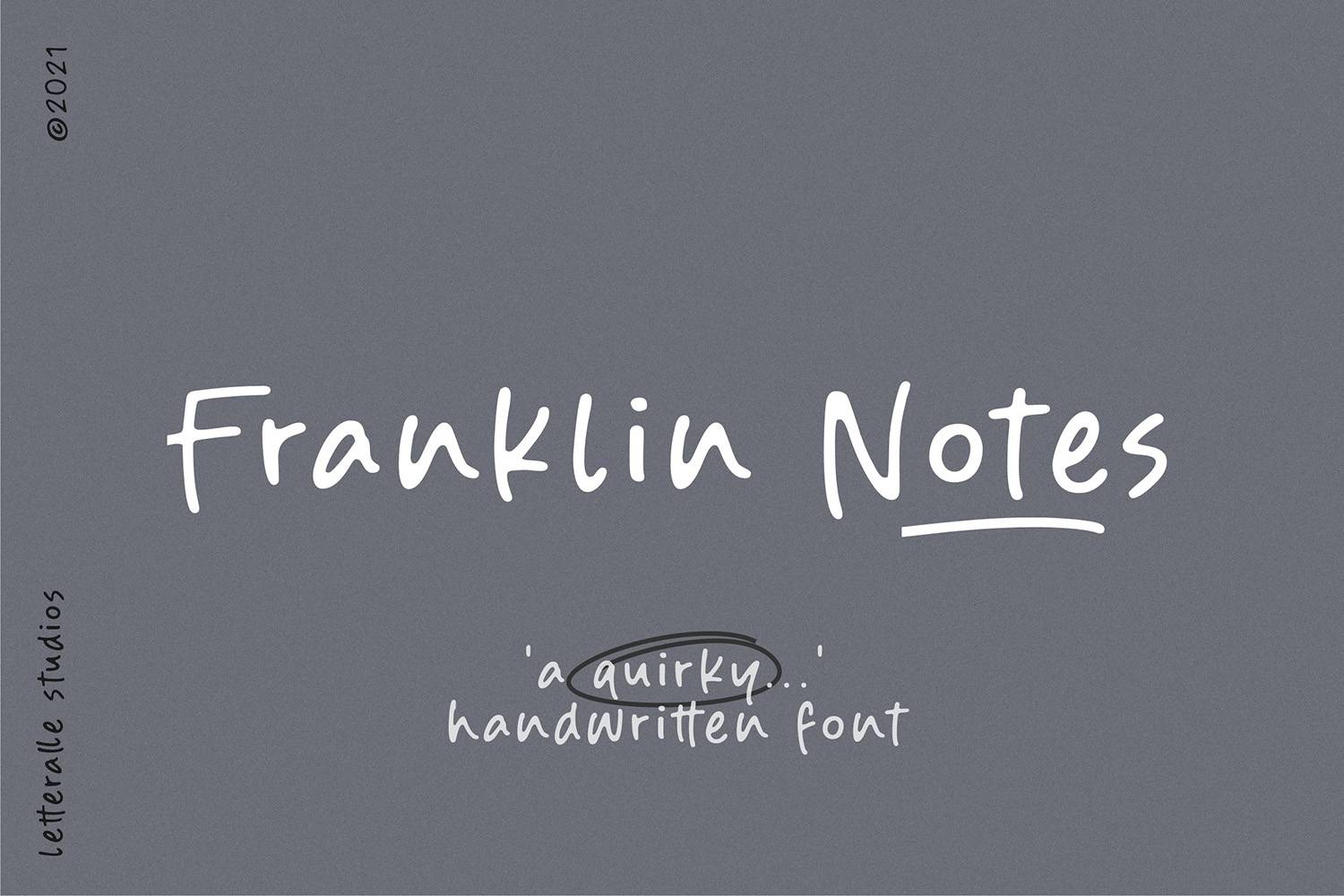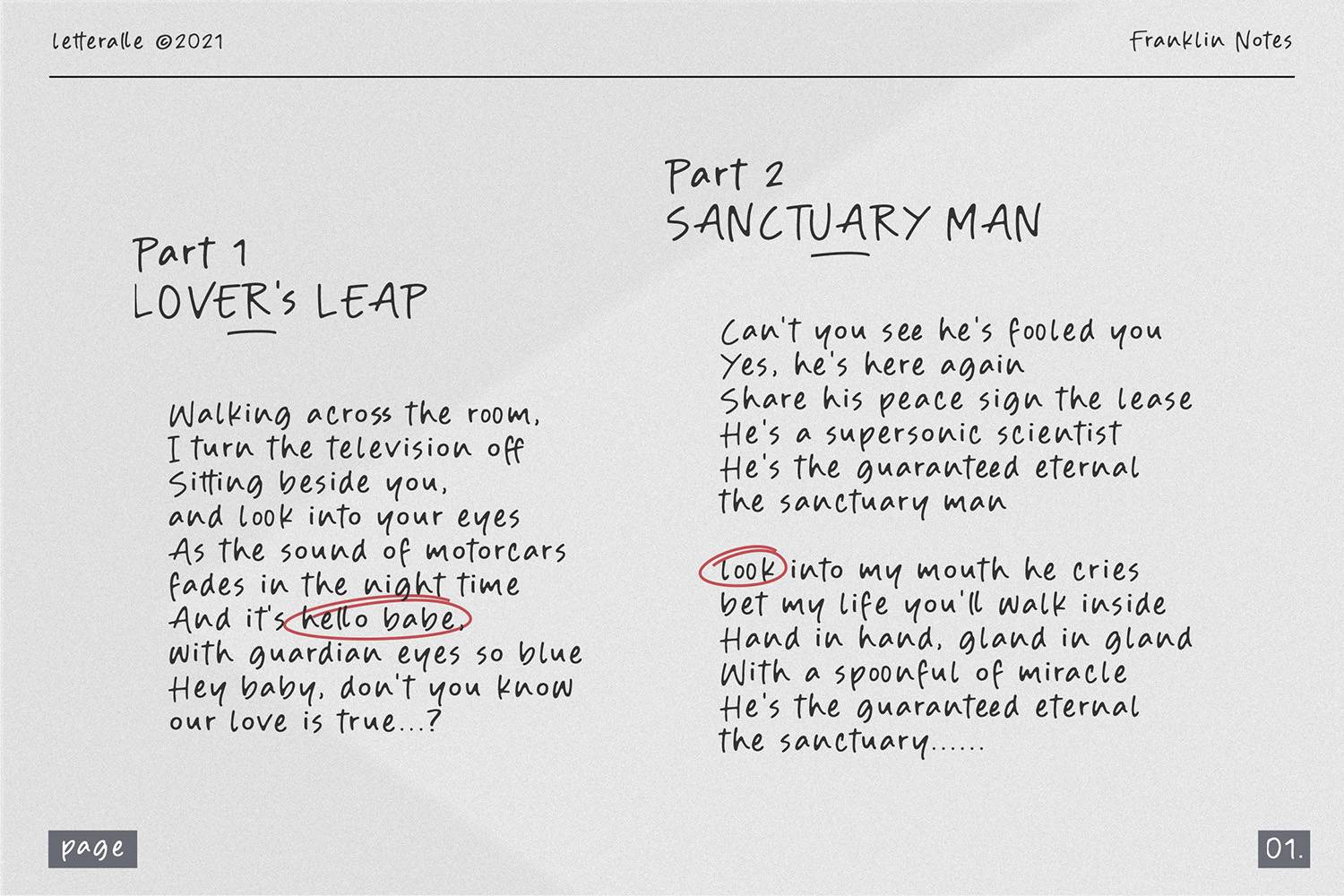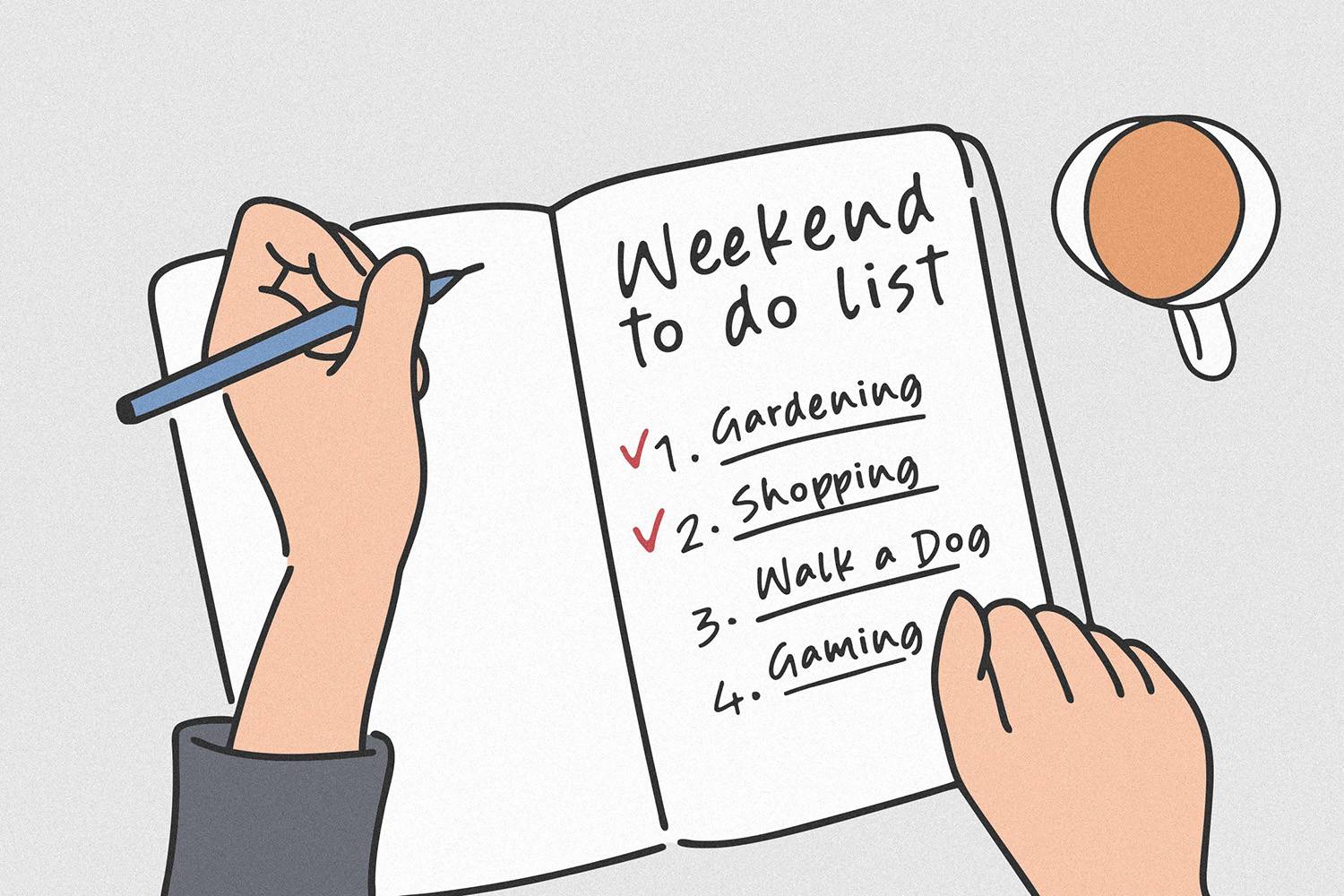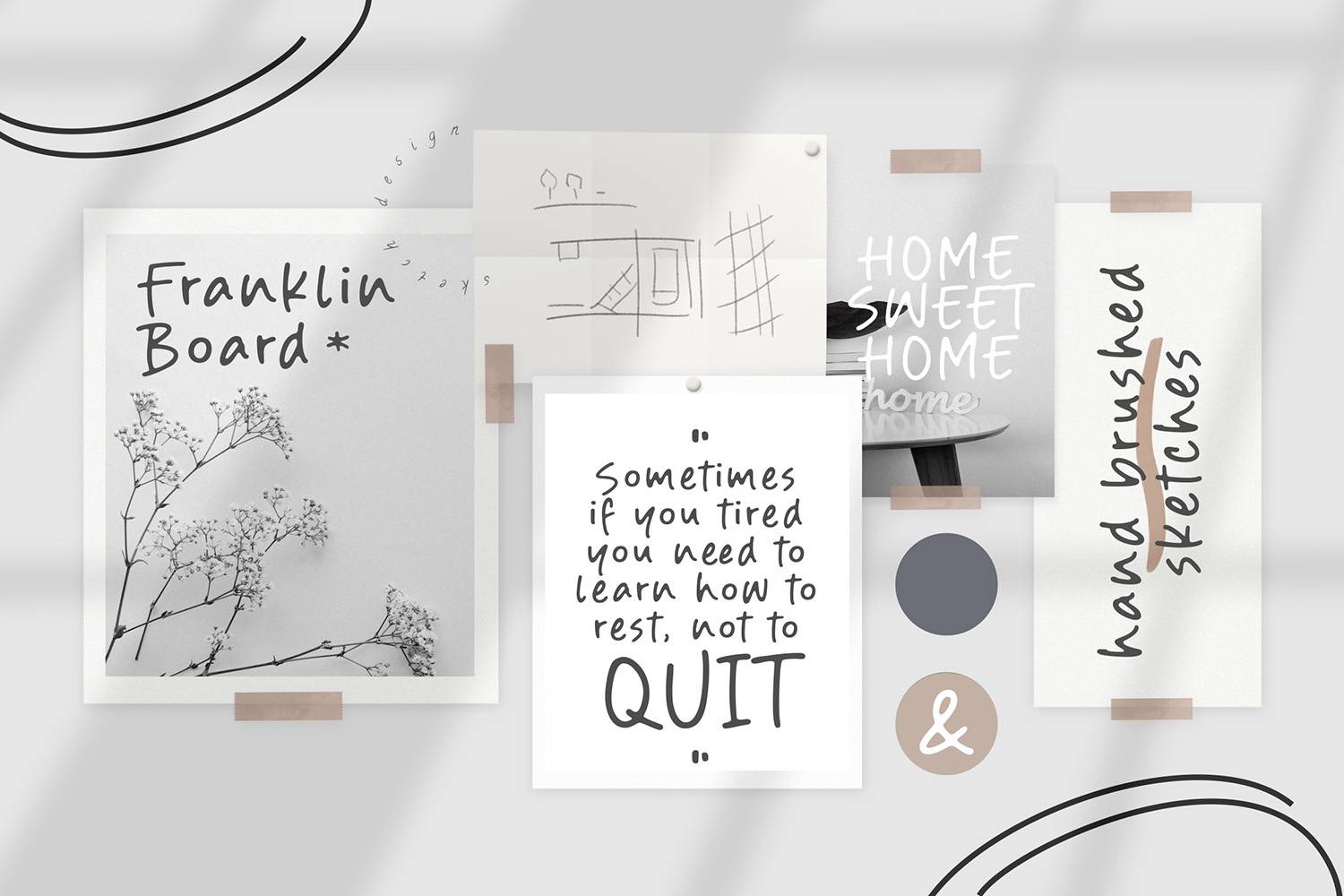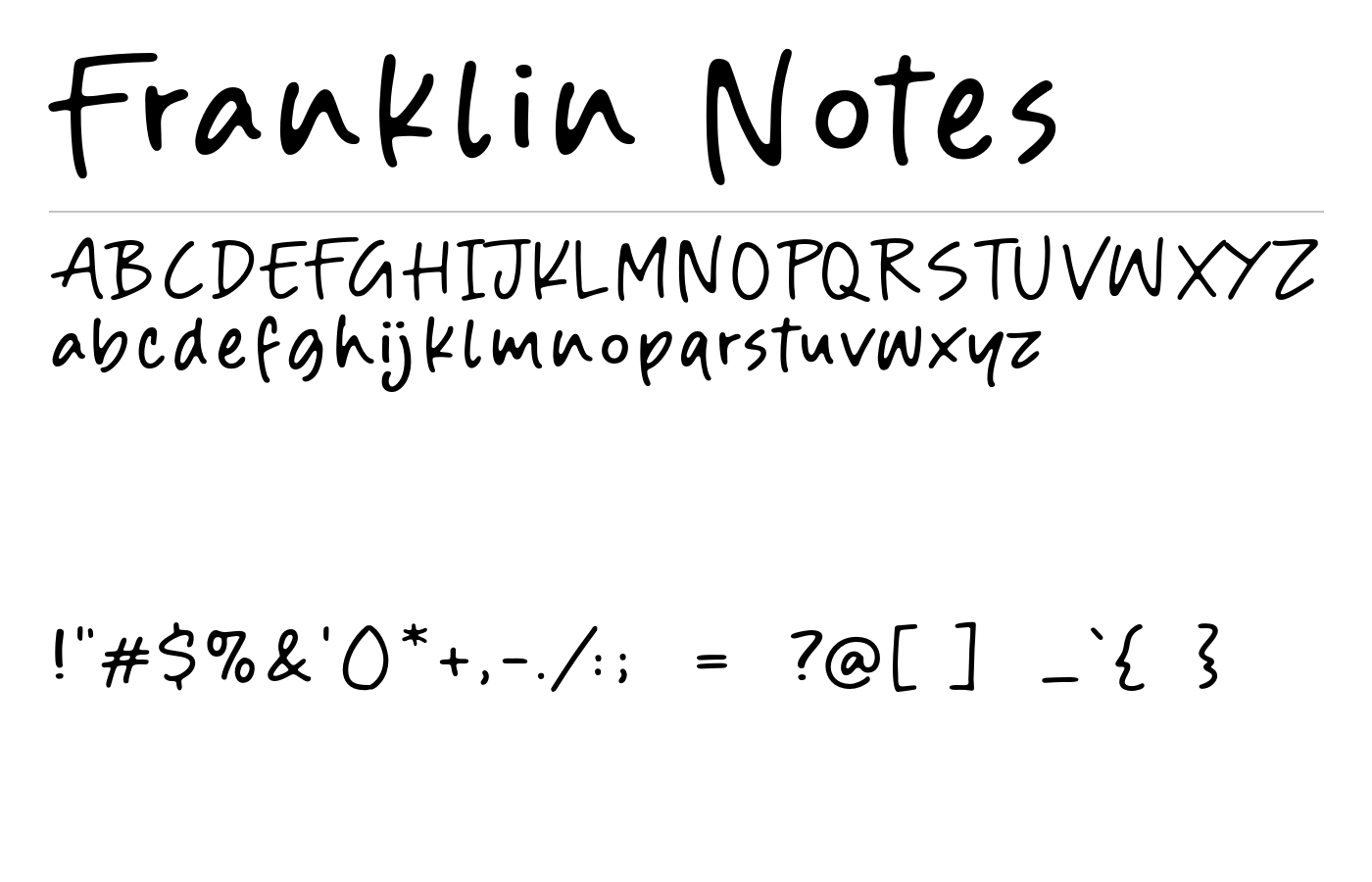
Franklin Notes is a casual, handwritten sans serif font that exudes a friendly and approachable vibe with its smooth, irregular strokes and lively character shapes. Its clean, tall letterforms with moderate spacing make it ideal for informal communications, creative projects, and playful branding where a personal touch is desired. This font works well in headlines, invitations, and social media content, adding warmth and authenticity to any design.
Franklin Notes Font
About Franklin Notes Font
| Font family | Franklin Notes Font |